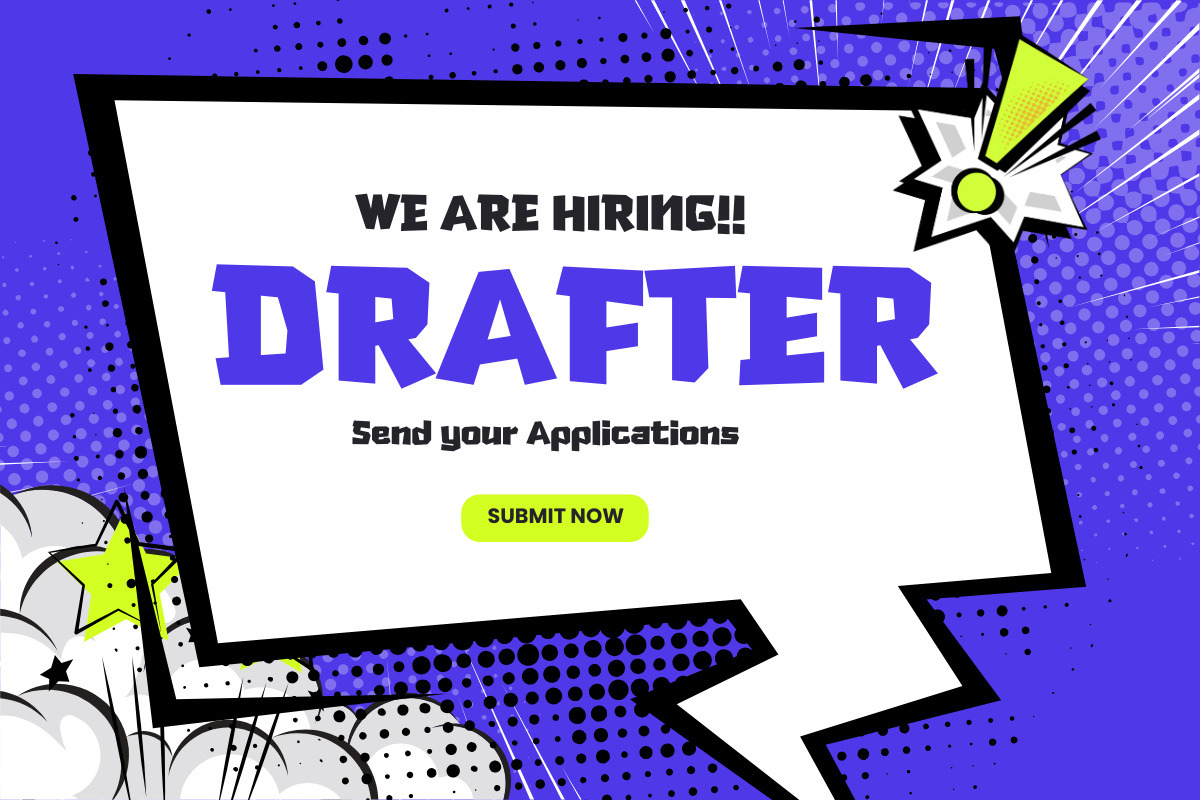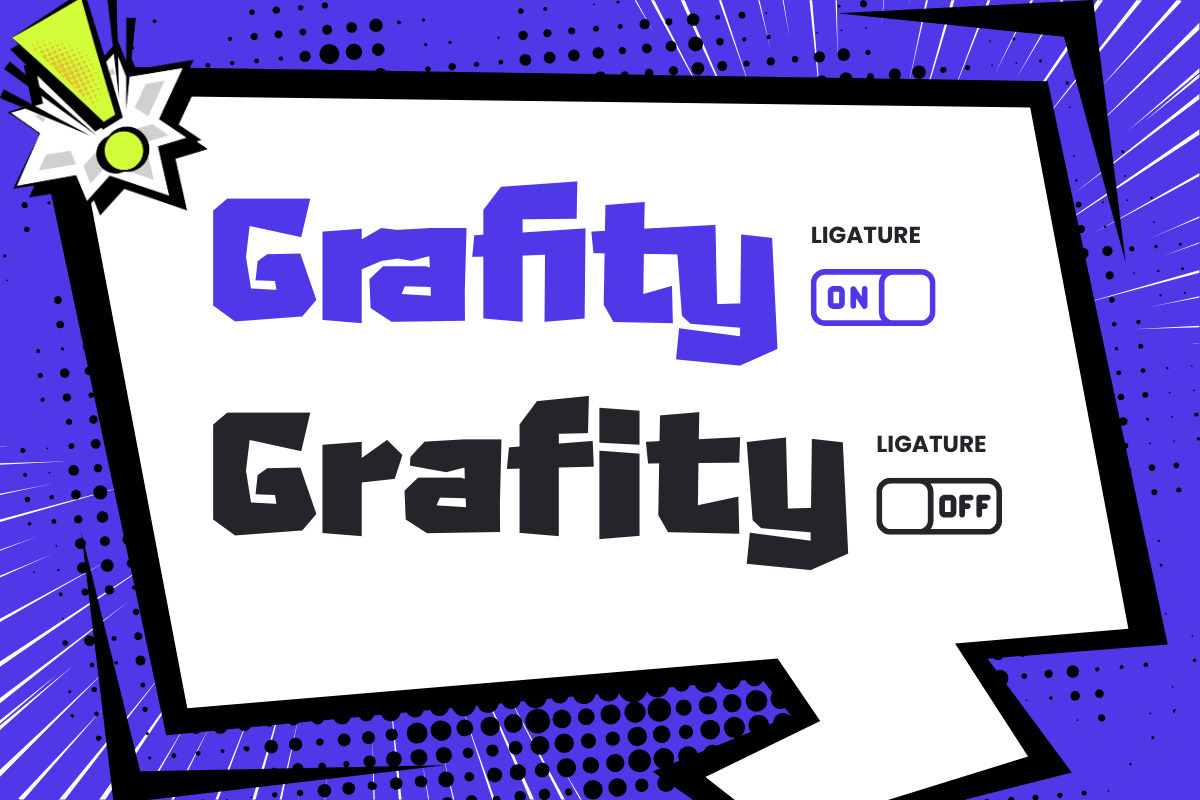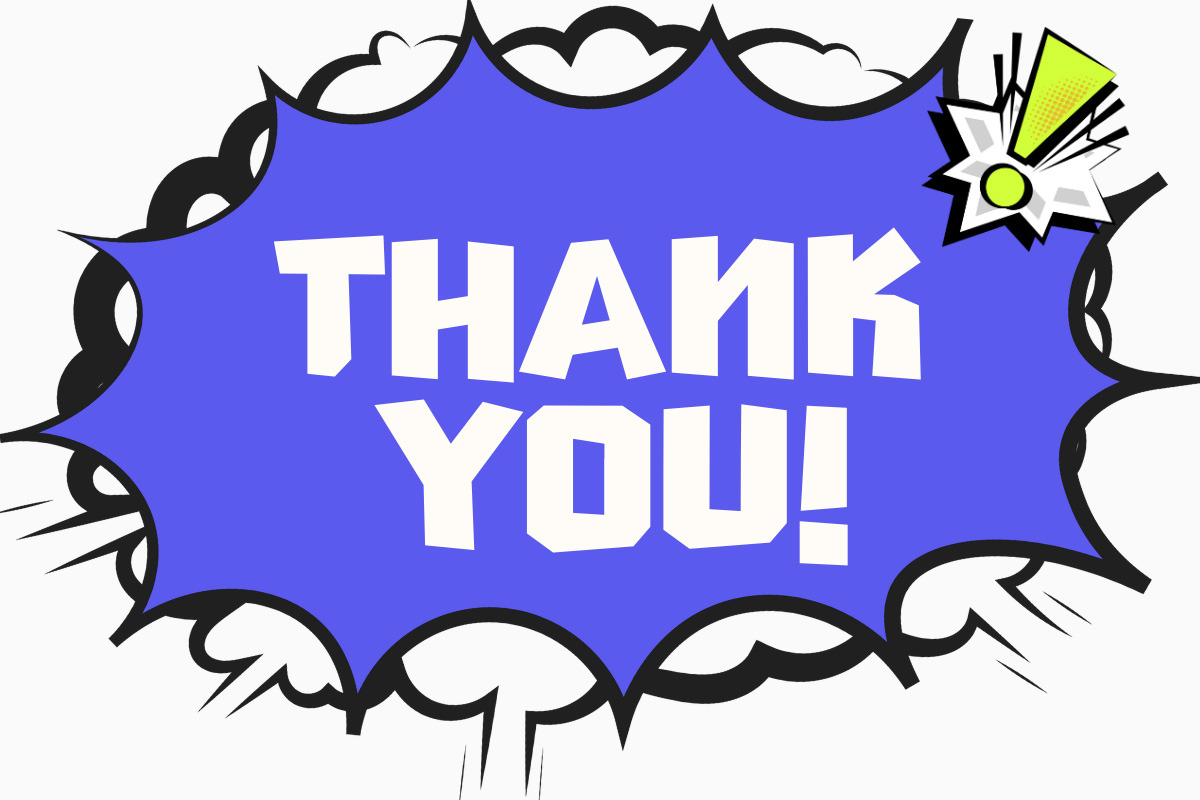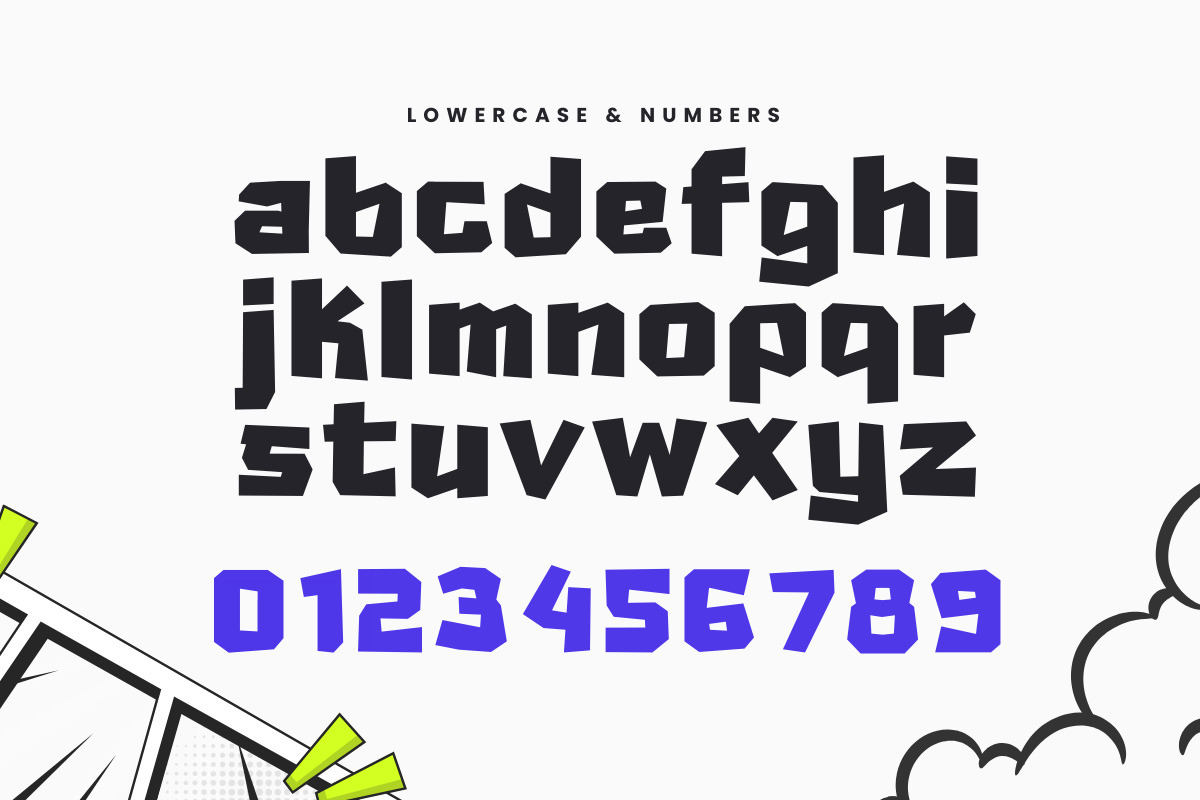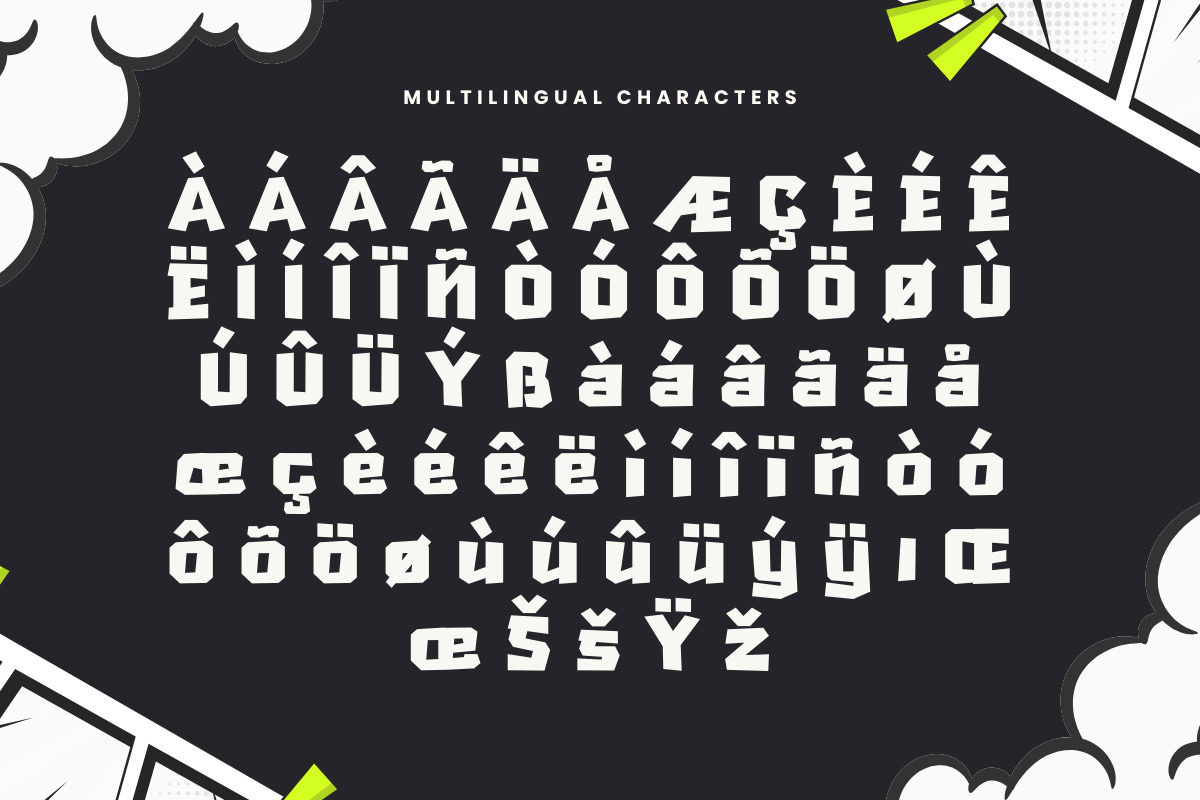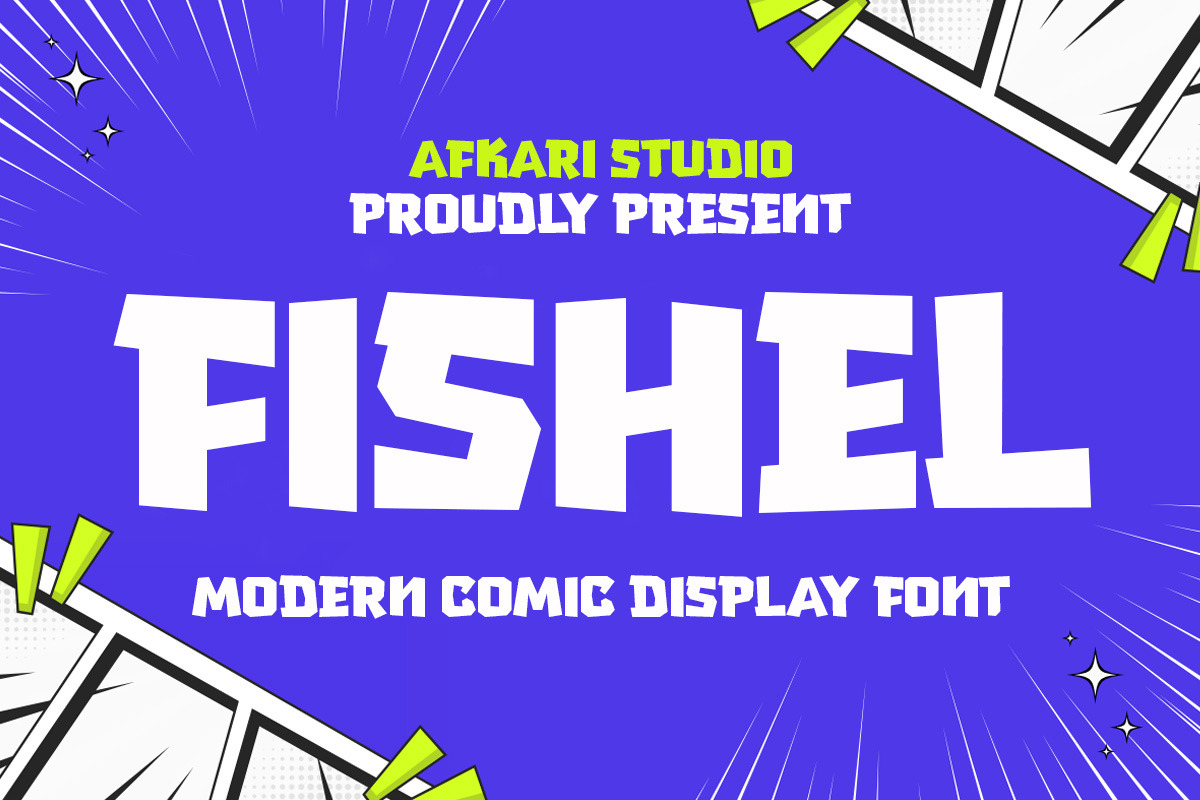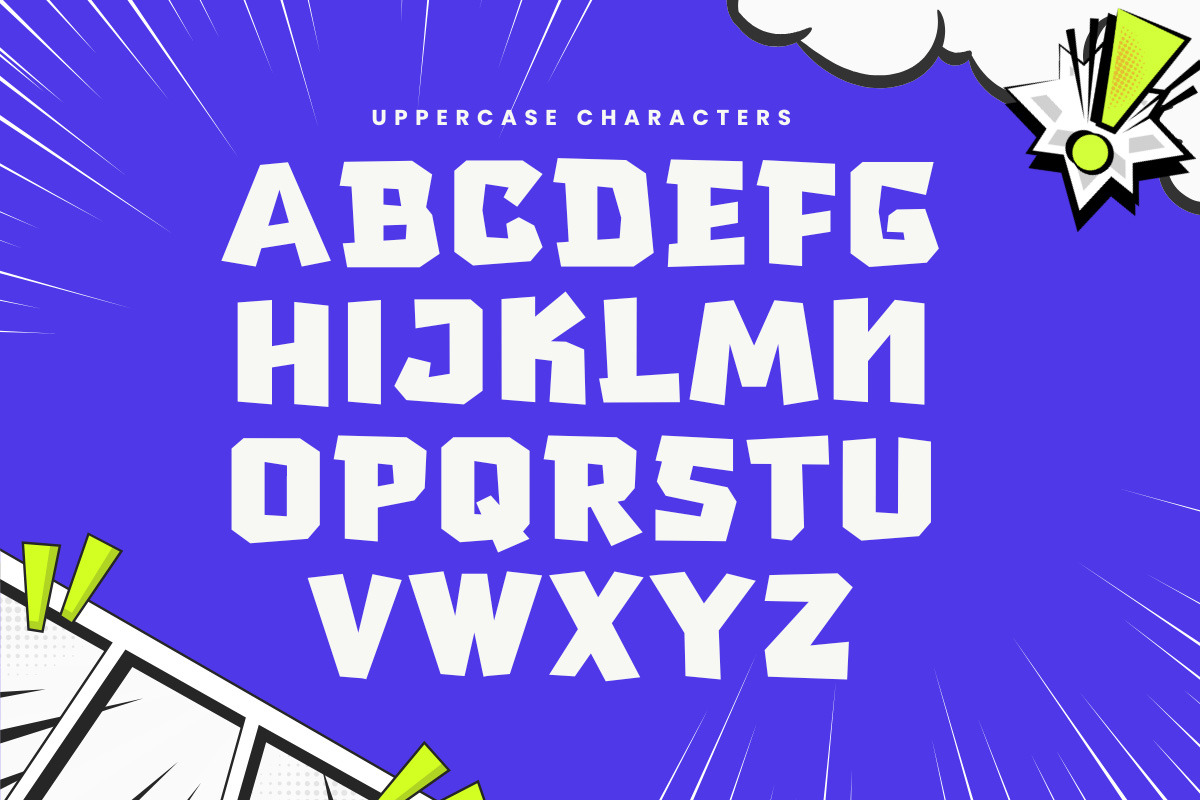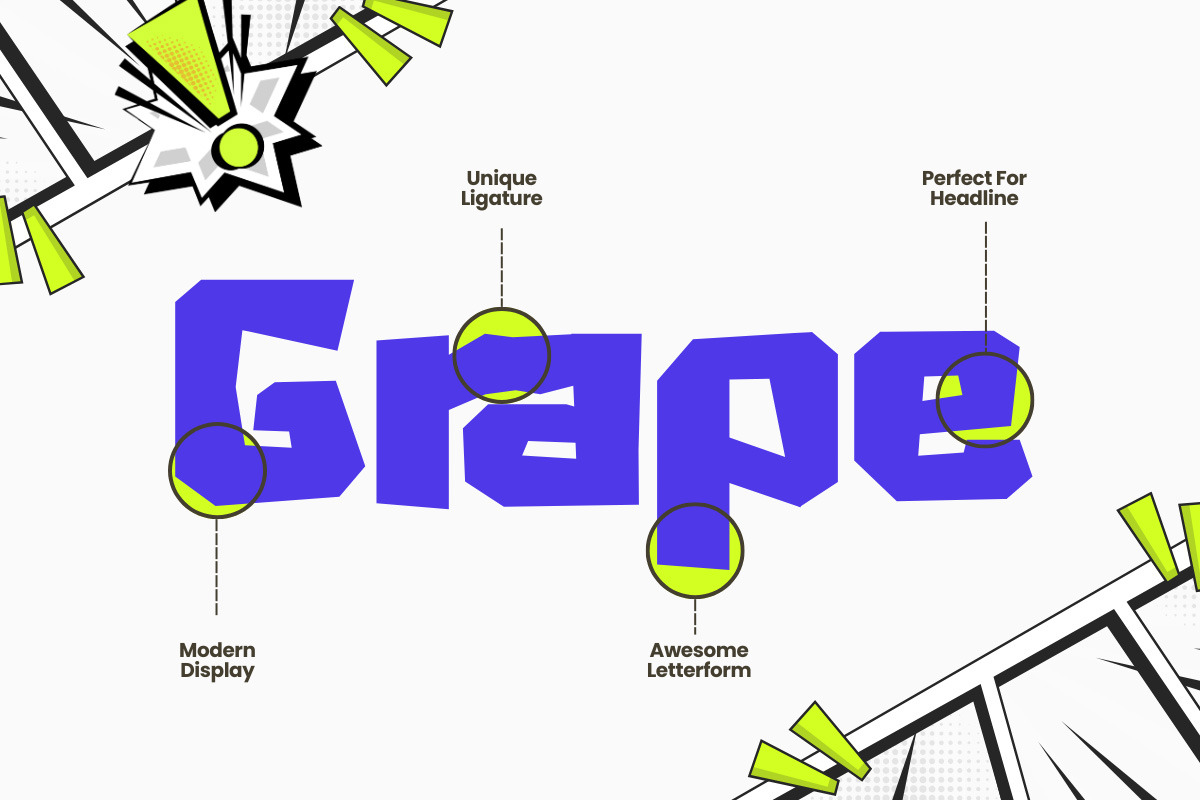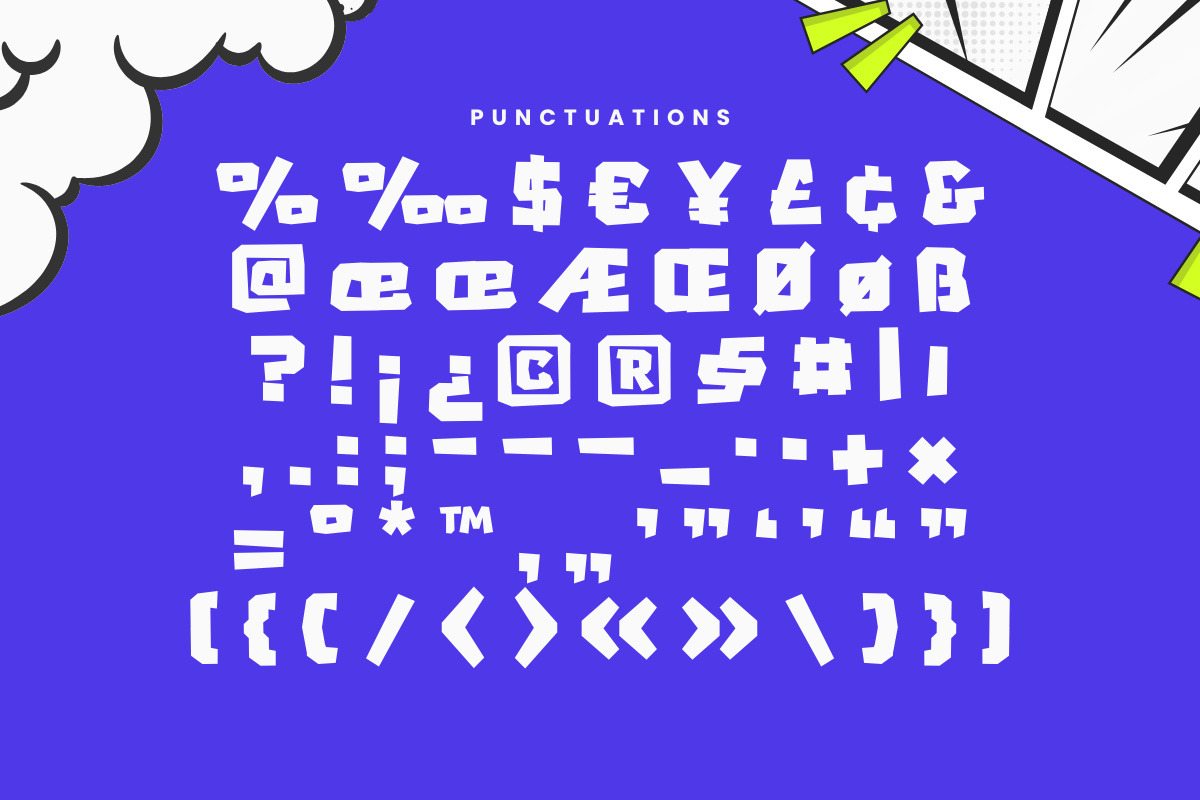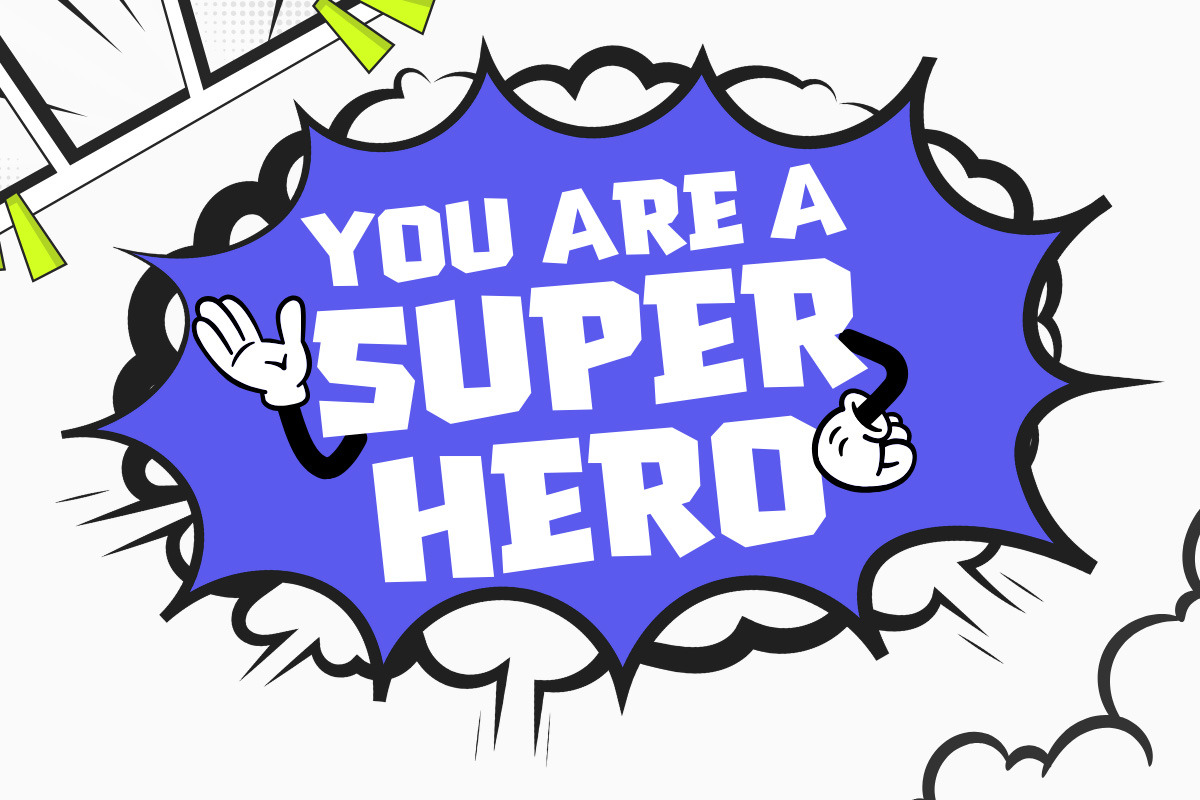
Fishel - Modern Comic Display Font
FISHEL is a modern comic-style font designed to bring energy, personality, and fun into your designs. Inspired by hand-drawn comic lettering but refined with clean, contemporary shapes, FISHEL delivers a playful tone without looking childish—perfect for modern creatives who want expressive typography with strong readability.
With bold strokes, lively curves, and dynamic letterforms, FISHEL is ideal for projects that need a cheerful, friendly voice. Whether you’re working on kids branding, stickers, posters, social media content, comics, or merchandise, FISHEL makes every message feel animated and engaging.
This font blends comic charm with modern versatility, making it suitable for both digital and print use.
Highlighted Features:
- Uppercase, Lowercase, Number, and Punctuation
- Special alternates and ligatures
- Mültîlíñgúãl Sùppört for; ä ö ü Ä Ö Ü ß ¿ ¡